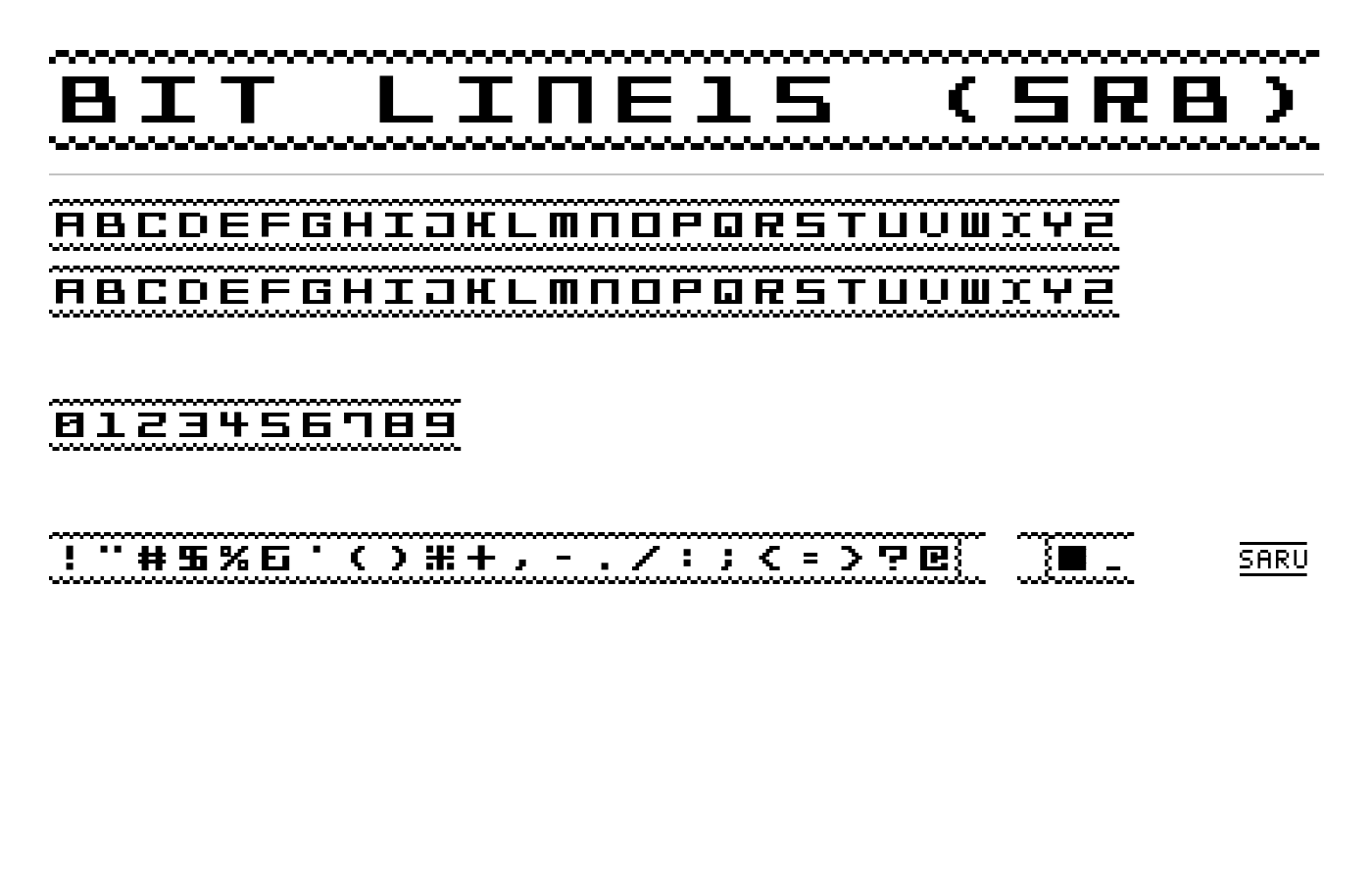
Bit Line15 (sRB) is a pixelated, monospaced sans serif font that exudes a retro, digital vibe reminiscent of early computer screens and video games. Its blocky, geometric letterforms with sharp edges and uniform stroke weight create a straightforward, tech-inspired feel, making it perfect for projects needing a vintage digital or tech aesthetic, such as logos, game interfaces, or digital-themed posters. This font’s clean, grid-based design ensures readability at small sizes while maintaining a nostalgic charm.
Bit Line15 (sRB) Font